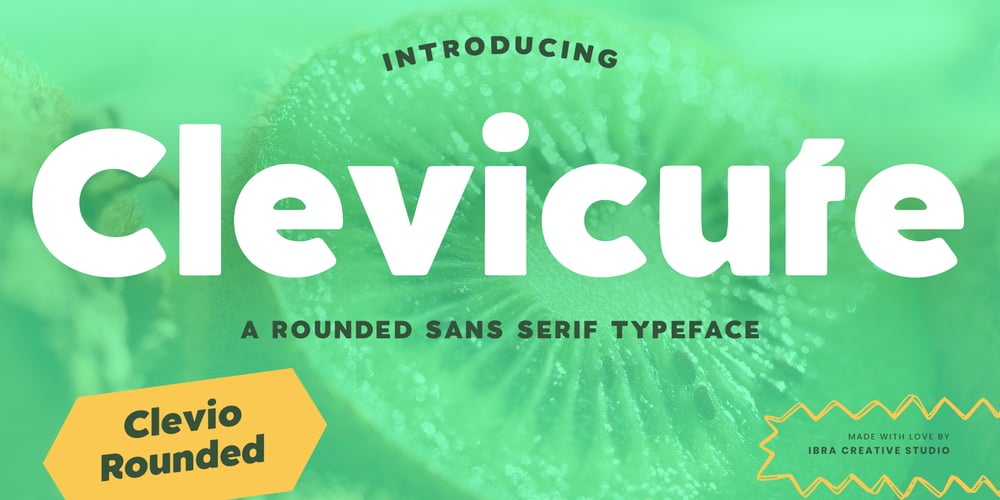
Clevicute
Clevicute font
Clevicute Font Family was designed by Roisatul Azizah and published by IbraCreative. Clevicute contains 1 styles and family package options. Clevicute – A Rounded Sans Serif TypefaceClevicute, a rounded sans-serif typeface, exudes a playful and friendly demeanor with its soft curves and harmonious proportions. The rounded terminals of each letter convey a sense of approachability, making it an ideal choice for projects that seek a balance between modern aesthetics and a warm, inviting feel. Whether used in branding, headlines, or digital interfaces, Clevicute adds a touch of whimsy and versatility to the visual landscape. The typeface’s clean lines and smooth contours ensure readability, while its subtle quirkiness injects a cheerful and modern vibe into design compositions. Clevicute is not just a typeface; it’s a visual storyteller, seamlessly blending simplicity and charm for a wide array of creative applications. Clevicute is perfect for branding projects, logo, wedding designs, social media posts, advertisements, product packaging, product designs, label, photography, watermark, invitation, stationery, game, fashion and any projects.Fonts include multilingual support for; Afrikaans, Albanian, Czech, Danish, Dutch, English, Estonian, Finnish, French, German, Hungarian, Italian, Latvian, Lithuanian, Norwegian, Polish, Portuguese, Slovak, Slovenian, Spanish, Swedish.